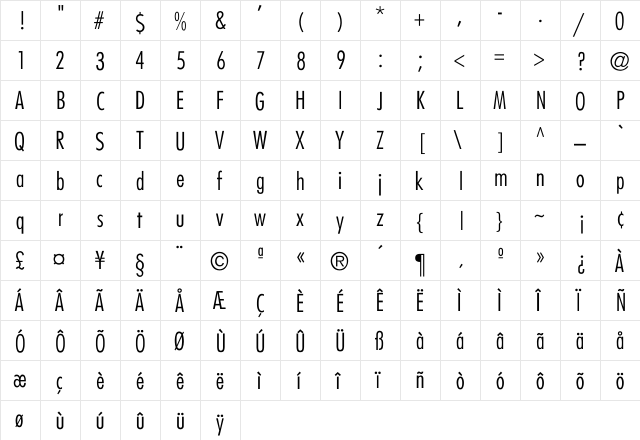
Fairmont-CondensedLight-Normal Regular
Design Context for Fairmont-CondensedLight-Normal Typeface
Fairmont-CondensedLight-Normal is a composed and adaptable typeface that performs quietly and consistently across a wide range of design contexts. The delicate stroke weight brings airiness and refinement to layouts. The condensed width makes it efficient for tight spaces without sacrificing legibility.